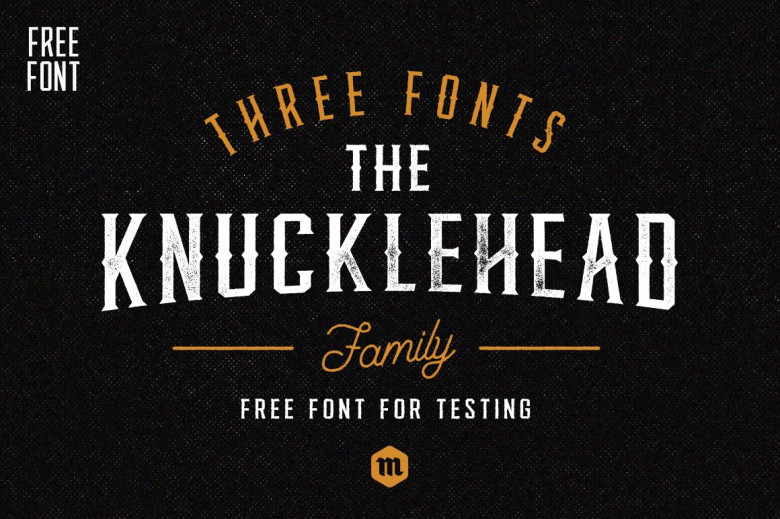
Knucklehead Typeface
Knucklehead Regular: Vintage style free font
Glad to introduce to you a new font family, Knucklehead Typeface designed by Mcraft Shop. Knucklehead is a 3 font family with a mono weight and different decorations. Inspired by american western culture and tattoos, is perfect to use in vintage-themed designs. Knucklehead is suitable for any project that requires an old western feel as the core design elements; such as logo, wedding invitation, greeting card, poster, etc.